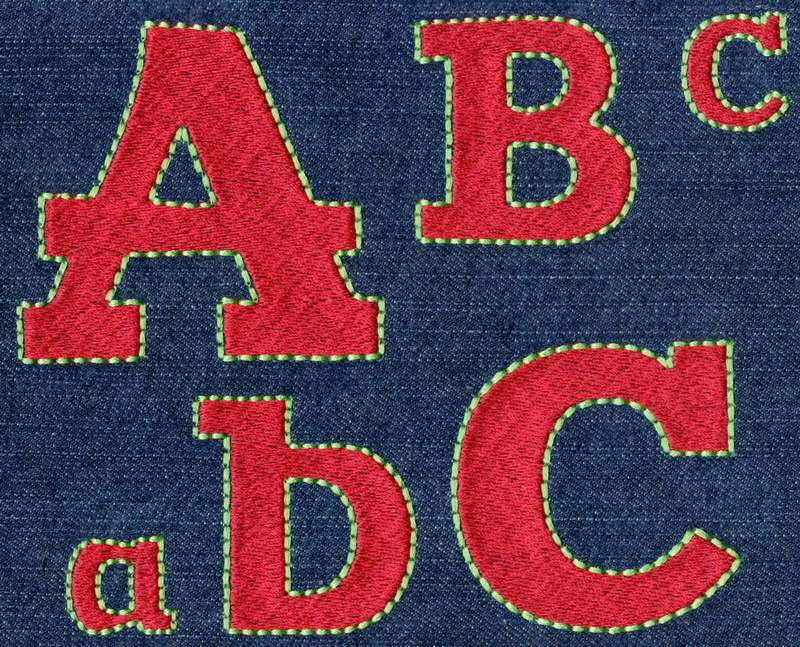
395 Zantroke Fill & Floss Font
Zantroke Fill & Floss Font comes in 1", 2", 3" & 4" heights based on the capital "A". All sizes finished in fill stitch with floss stitch outlines. Floss stitch stitches out on all embroidery machines using standard embroidery thread. Some characters in the 3" set and many in the 4" set exceed standard 4x4 hoop limitations.